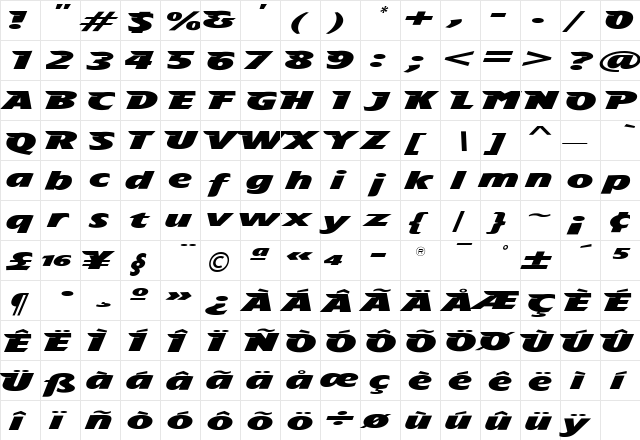
TFAvian Medium
| Foundry | JTreacy, Treacyfaces, Inc |
| Year | 1988 |
Design Context for TFAvian Typeface
TFAvian is a composed and adaptable typeface that performs quietly and consistently across a wide range of design contexts.